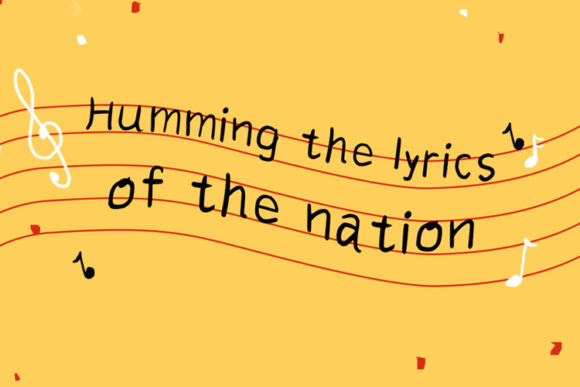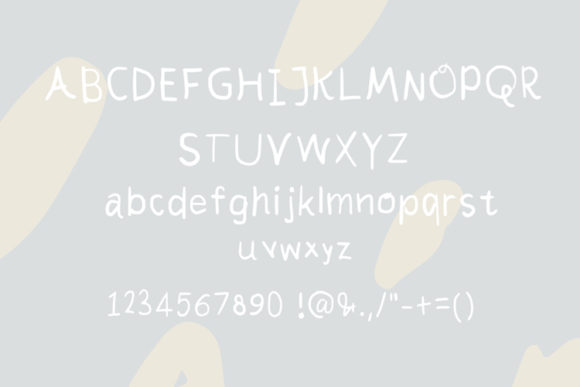
Lisaceria Font
About Lisaceria Font
The Lisaceria is an amazing handwritten font. It has a modern and clean look which can be used for quotes, logos, blogs, invitations, business cards, and much more!